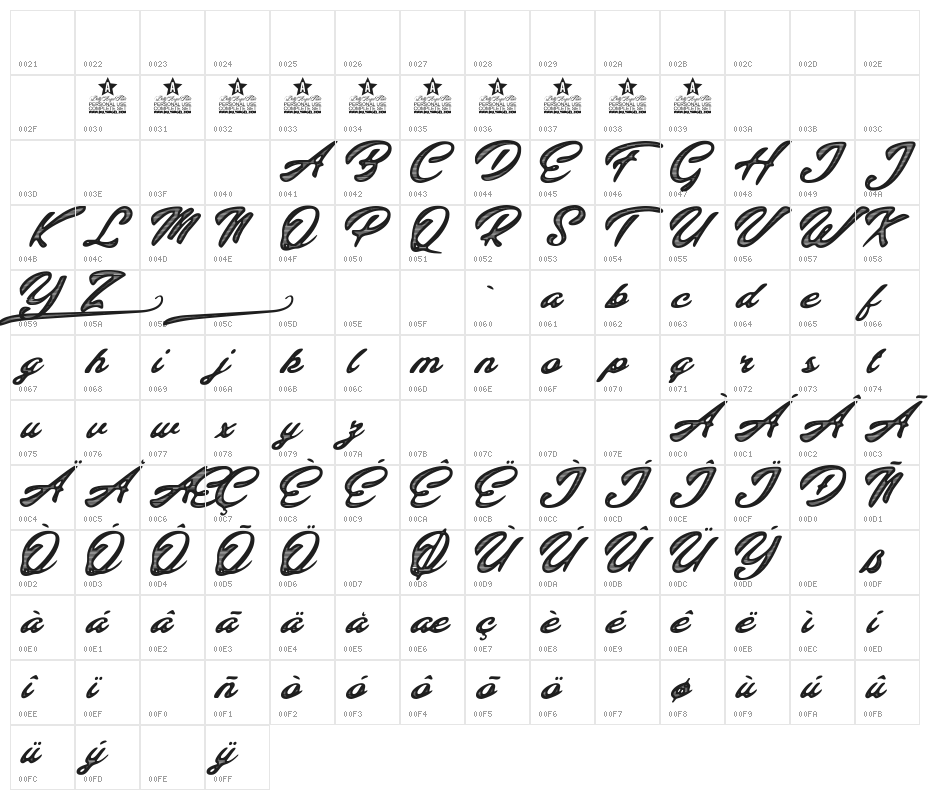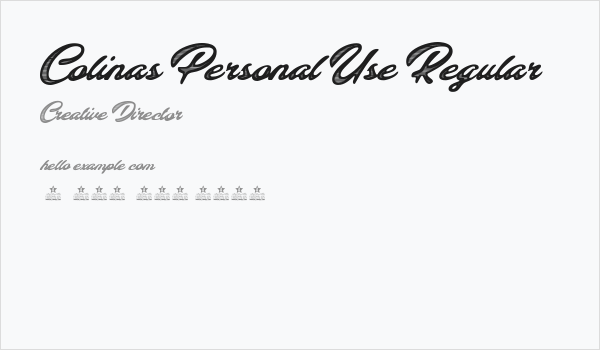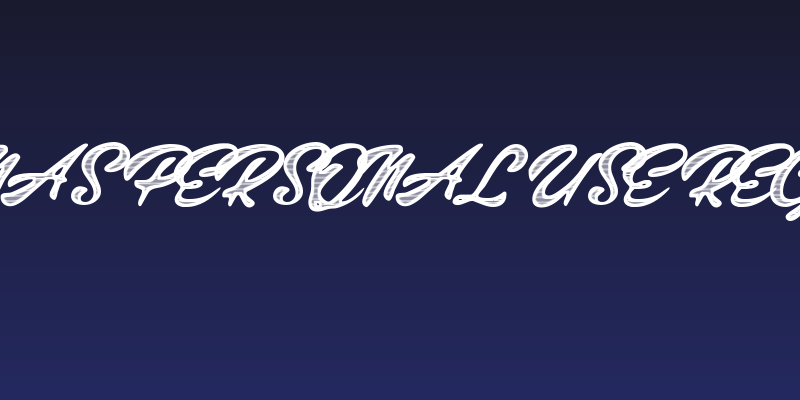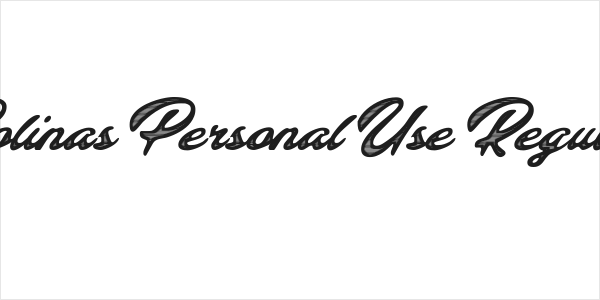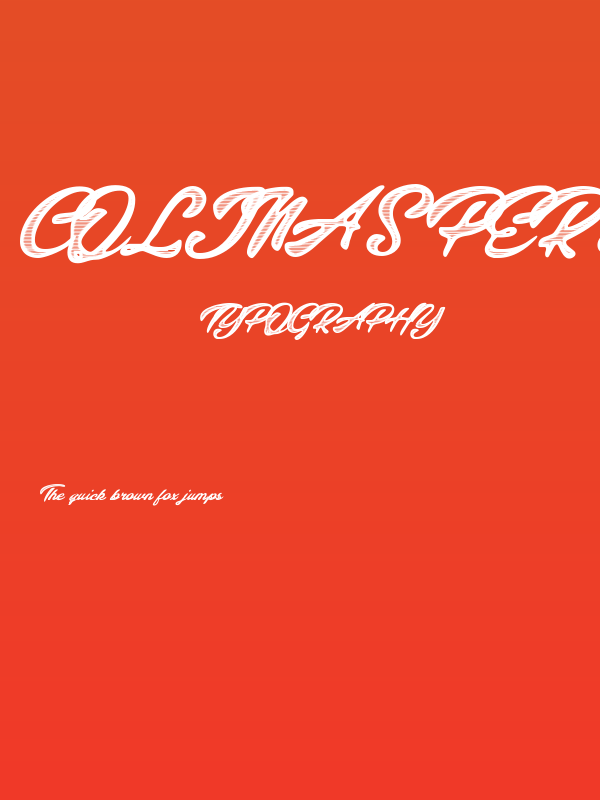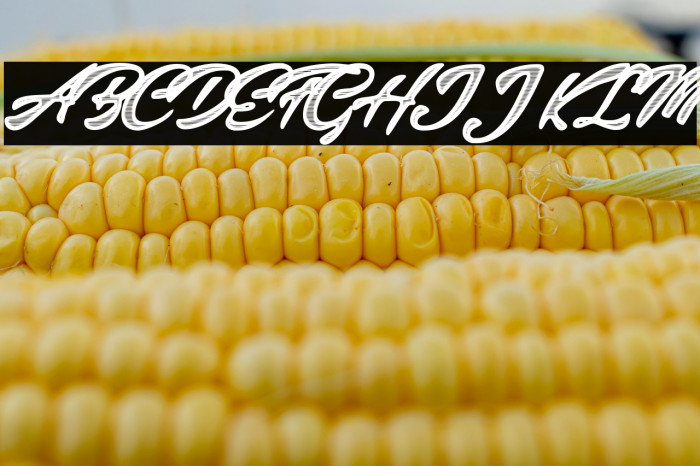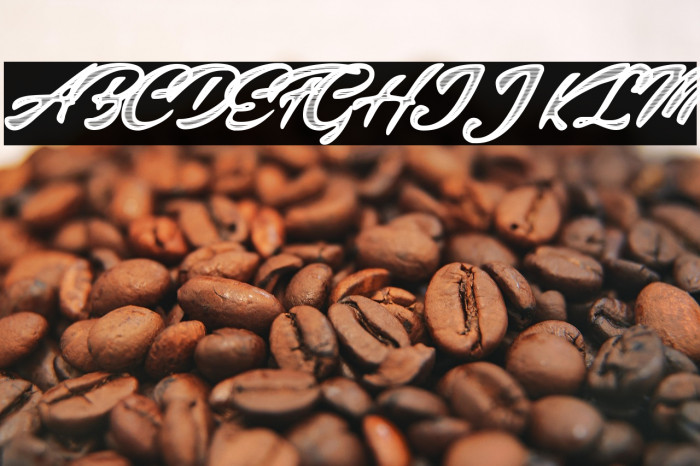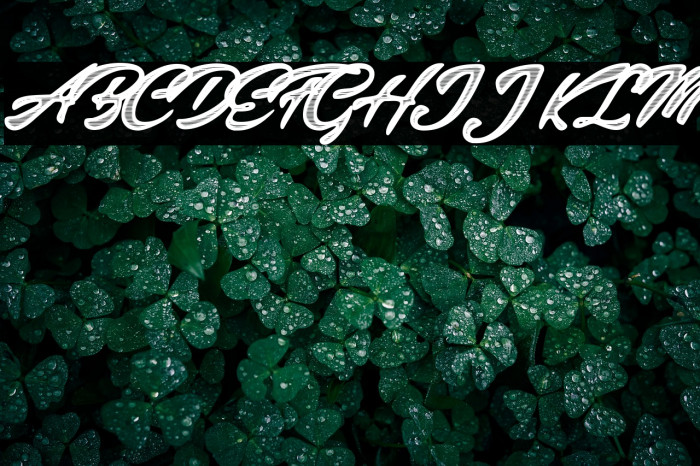
Colinas Personal Use Regular Font
Colinas Personal Use Regular Description
This font features a bold and dynamic script style, characterized by its flowing, cursive letterforms that exude a sense of elegance and sophistication. The letters are interconnected, creating a seamless and fluid appearance that is both artistic and expressive. The strokes are thick and consistent, providing a strong visual impact, while the slight slant of the characters adds a touch of movement and grace. The font's decorative nature makes it ideal for creative projects that require a personal and stylish touch. Its unique design is suitable for various applications, from branding and logos to invitations and greeting cards.
| Proposed Projects | Ideal for branding, logos, invitations, greeting cards, and creative projects requiring an elegant touch. |